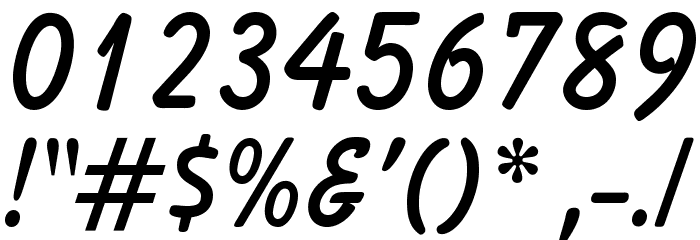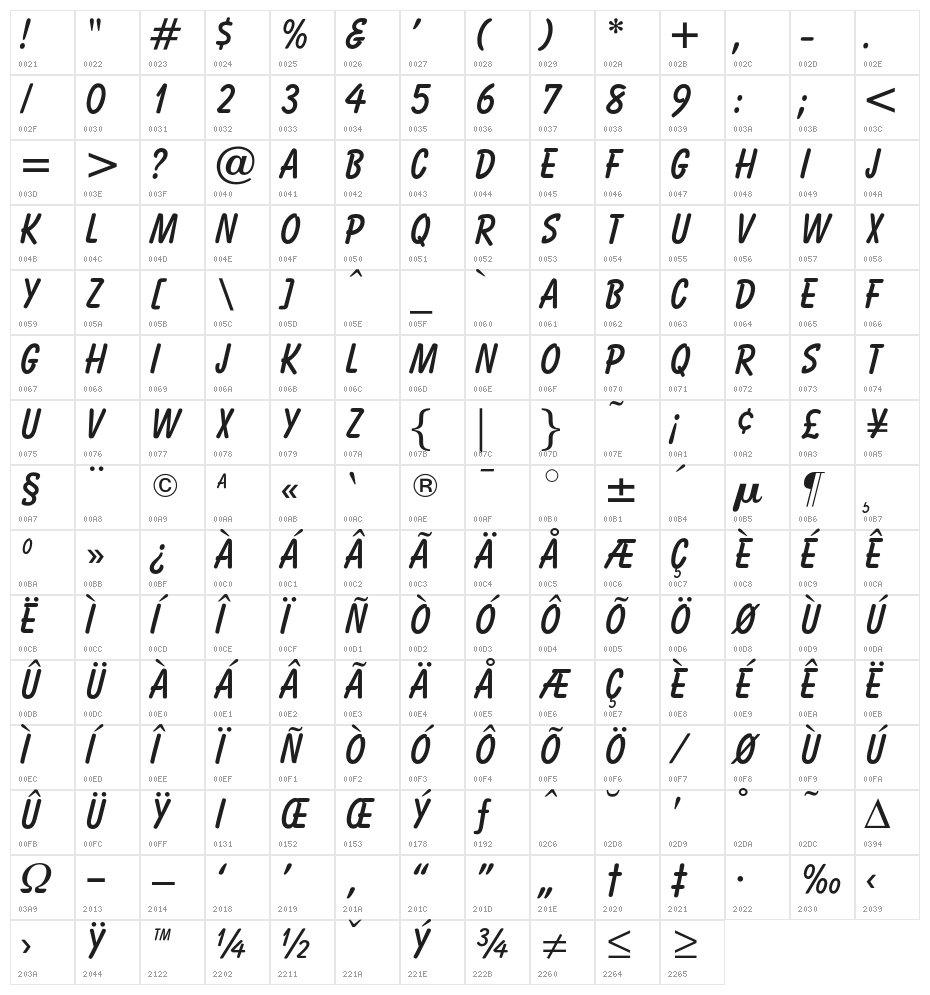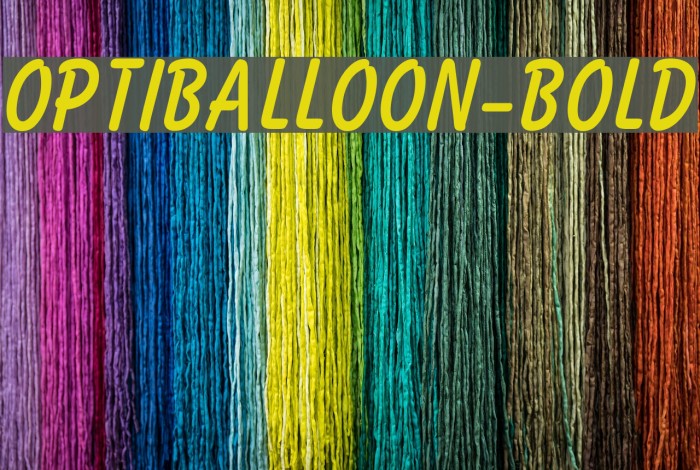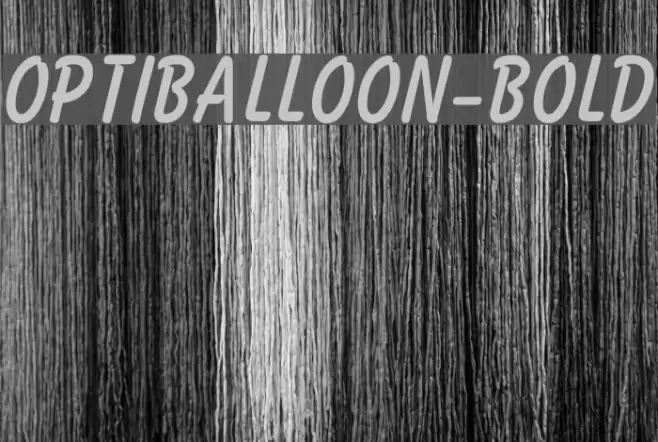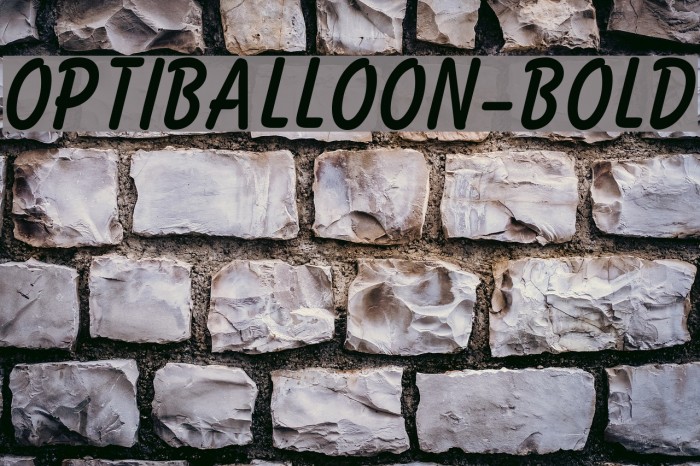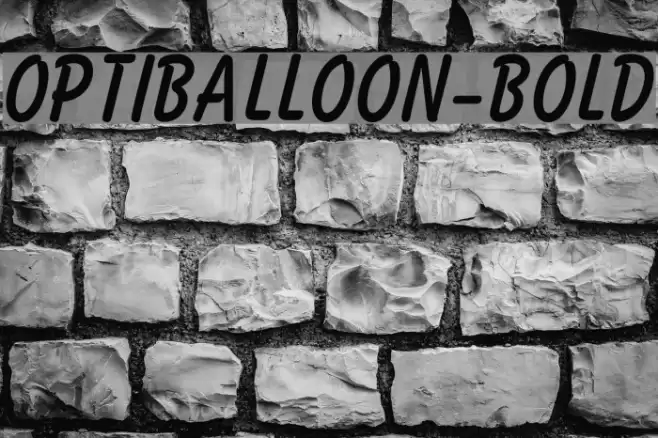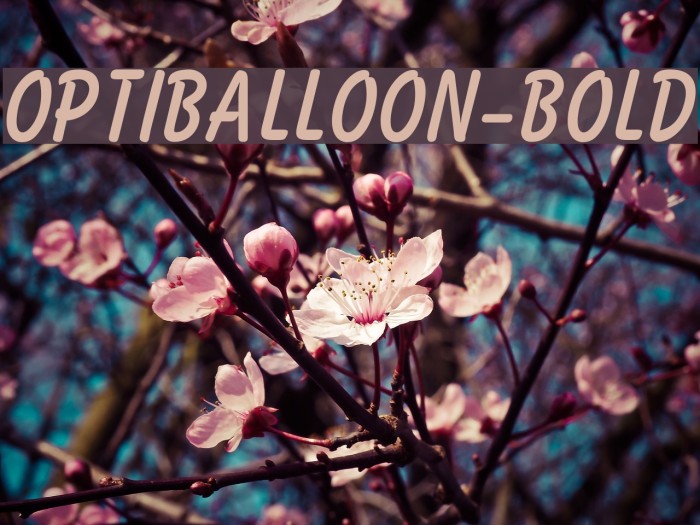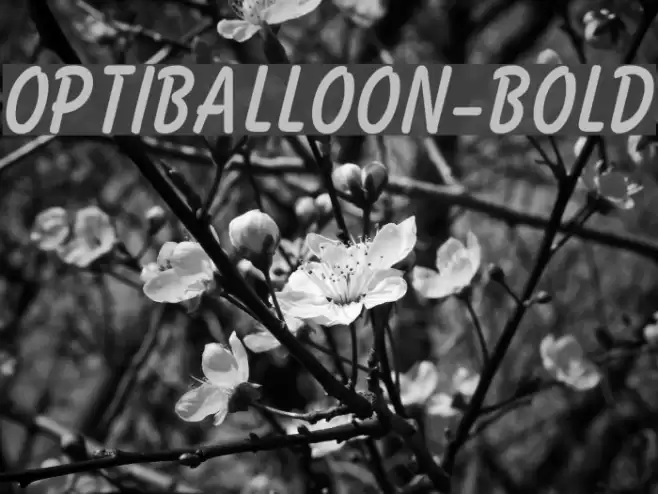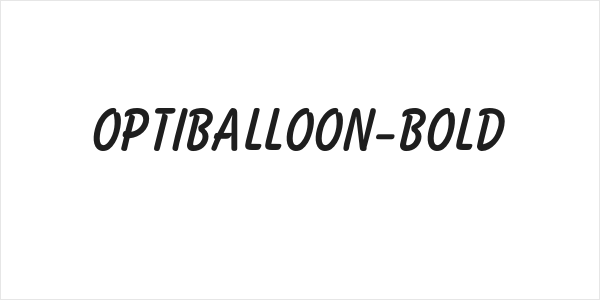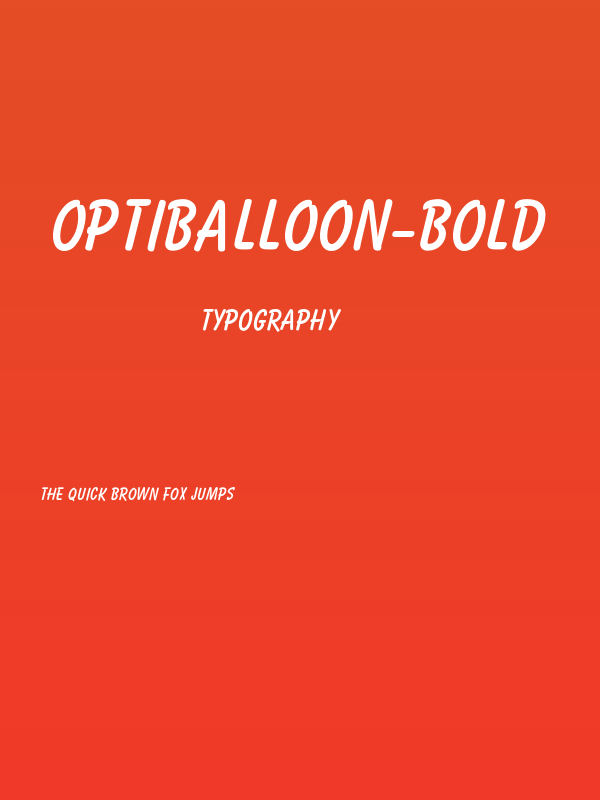
OPTIBalloon-Bold Font
OPTIBalloon-Bold Description
This font features a playful and energetic style with a bold, handwritten appearance. The characters are slightly slanted, giving a sense of movement and dynamism. The strokes are thick and rounded, contributing to a friendly and approachable look. The uppercase and lowercase letters maintain a consistent style, with smooth curves and a uniform weight. The numbers and special characters are designed to match the overall aesthetic, ensuring cohesion across all text elements. This font is ideal for projects that require a lively and informal touch.
| Proposed Projects | Ideal for children's books, playful branding, event invitations, and social media graphics. |